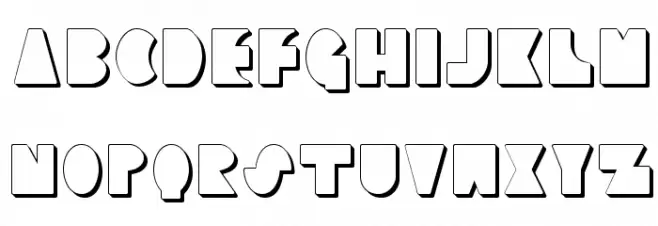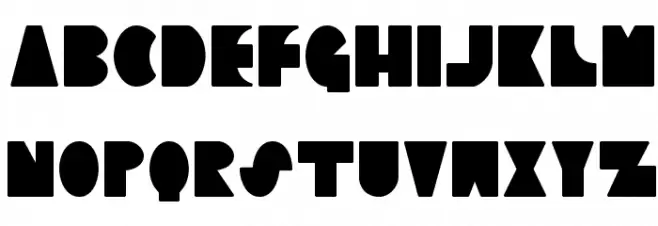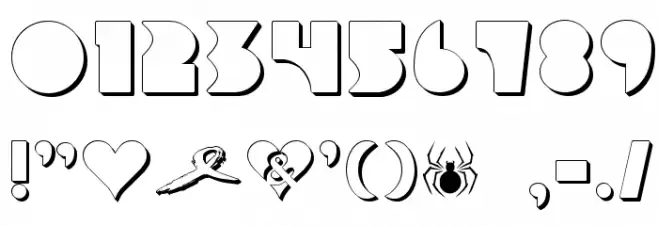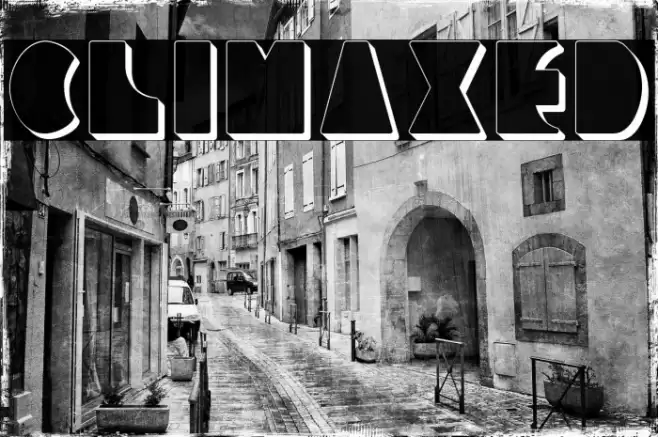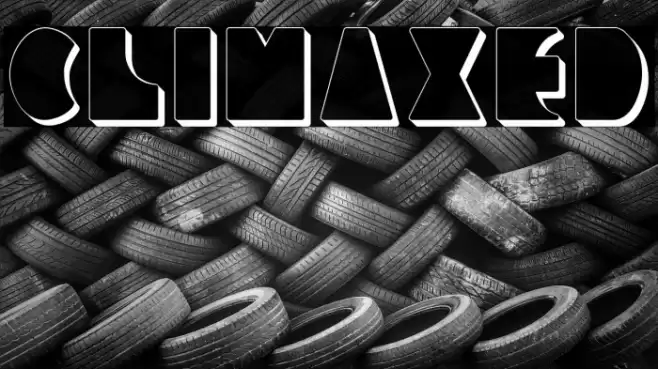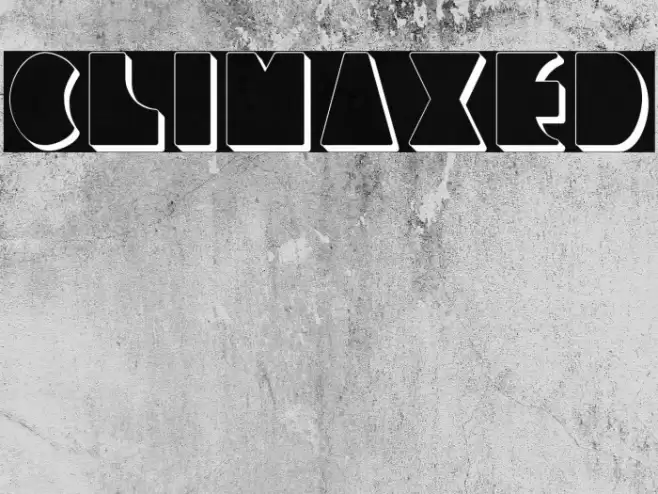
CLIMAXED
This font features a bold and striking design with a modern, geometric aesthetic. The uppercase letters are characterized by their thick, solid forms, often incorporating sharp angles and unique cutouts that create a dynamic and eye-catching appearance. The numbers follow a similar style, maintaining consistency with the bold and geometric theme. Special characters are creatively designed, adding a playful and artistic touch to the overall font. This font's strong visual impact makes it ideal for projects that require a bold statement.
A bold, geometric font with unique cutouts and a modern aesthetic.
- Proposed Projects: Ideal for branding, poster design, album covers, and any project needing a bold, modern statement.
- Contrast: High